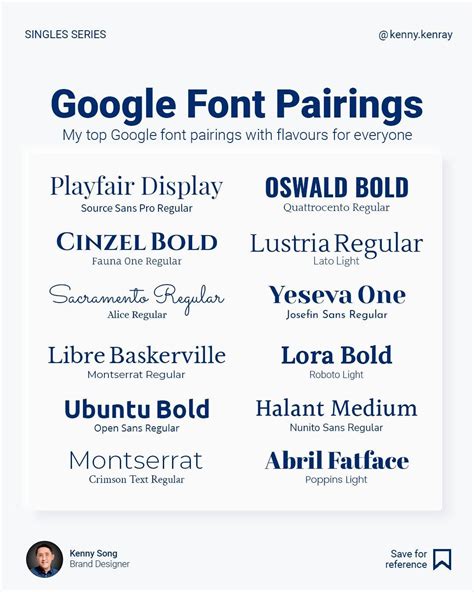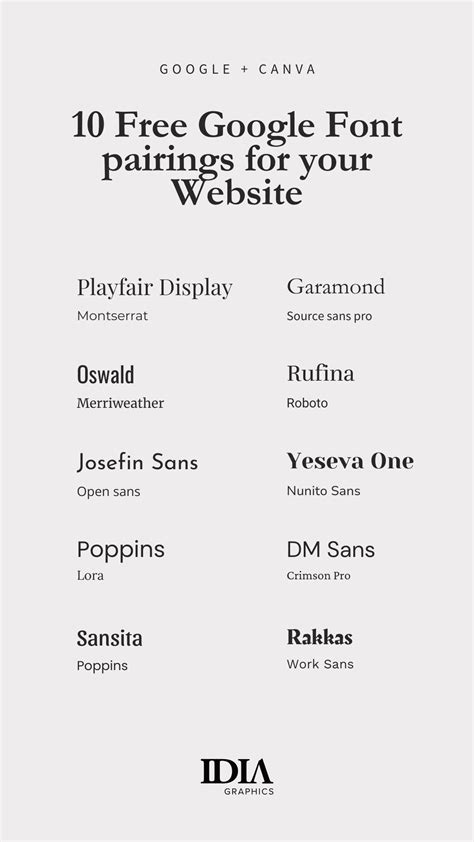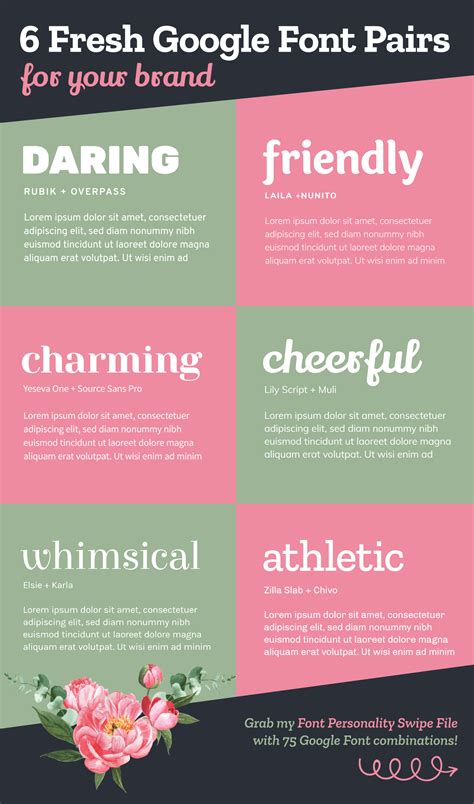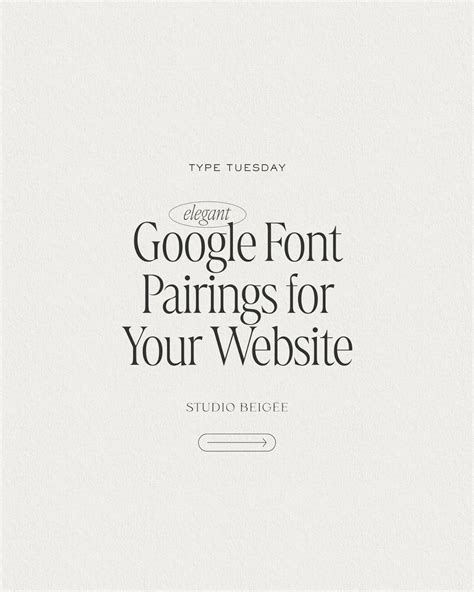
12+ Aesthetic Google Font Pairings Ttf
Finding the perfect typography combination is often the hardest part of a design project. I've spent hours scrolling through font directories, testing combinations that look great on Pinterest but fall apart in actual UI. When you want a cohesive look without licensing headaches, downloading 12+ aesthetic Google Font pairings ttf files is usually the best route. Here's how I approach mixing typefaces for real-world applications.
Why Typography Matters for UI Design
Typography dictates user experience just as much as color theory. A poor font choice destroys readability, but a great pairing establishes instant hierarchy. In my experience, using a high-contrast display font for headers paired with a neutral sans-serif for body text is a foolproof strategy. It guides the eye naturally without overwhelming the user.
My Top 12+ Aesthetic Google Font Pairings Ttf for Clean Web Design
I’ve tested dozens of combinations over the years. Below are a few of my favorite aesthetic Google Font pairings that consistently perform well across both desktop and mobile screens.
Header FontBody FontBest Use Case
Playfair DisplayLatoE-commerce and lifestyle blogs
MontserratMerriweatherCorporate and editorial sites
OswaldOpen SansNews and high-density layouts
PoppinsInterModern SaaS dashboards
How to Implement 12+ Aesthetic Google Font Pairings Ttf Properly
Using these combinations requires more than just slapping them into CSS. To get it right, I follow a strict workflow:
• Check the weights: Only load the weights you actually need to keep render times fast.
• Verify fallbacks: Always set reliable system fallbacks like Helvetica or Georgia in case the font fails to load.
• Test on mobile: Some display fonts break down at 14px or smaller, so check your line-height on actual devices.
The Ttf vs Woff2 Tradeoff
Here’s the thing about using ttf files: they are universally supported, but they are significantly larger than modern web formats. When I tested this, ttf files added an average of 30% more weight to my page loads compared to woff2. Honestly, if you are strictly building for modern browsers, woff2 is the better choice. However, if you need to support older enterprise systems or native apps, ttf remains the most reliable fallback.
Building a beautiful interface comes down to the details. The right typeface pairing creates an invisible structure that makes your content feel effortless to read. Test these combinations on your own layouts, adjust the weights, and see how they change the tone of your project. Once you nail the typography, everything else falls into place.